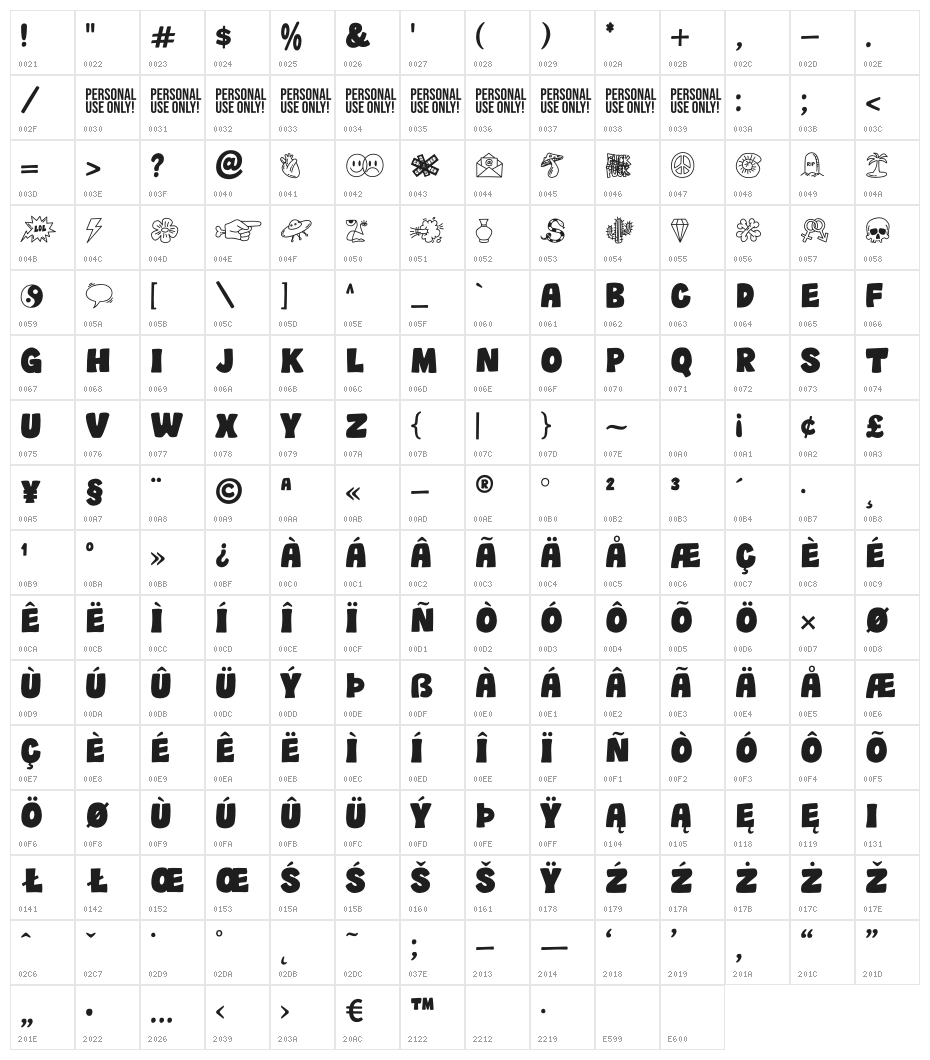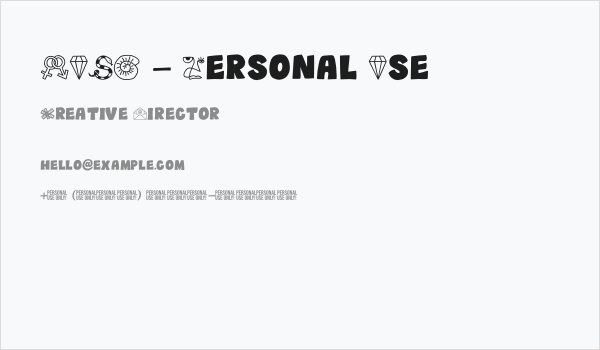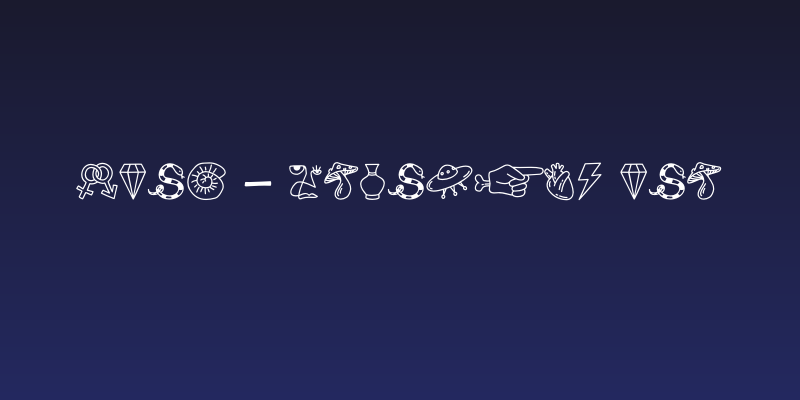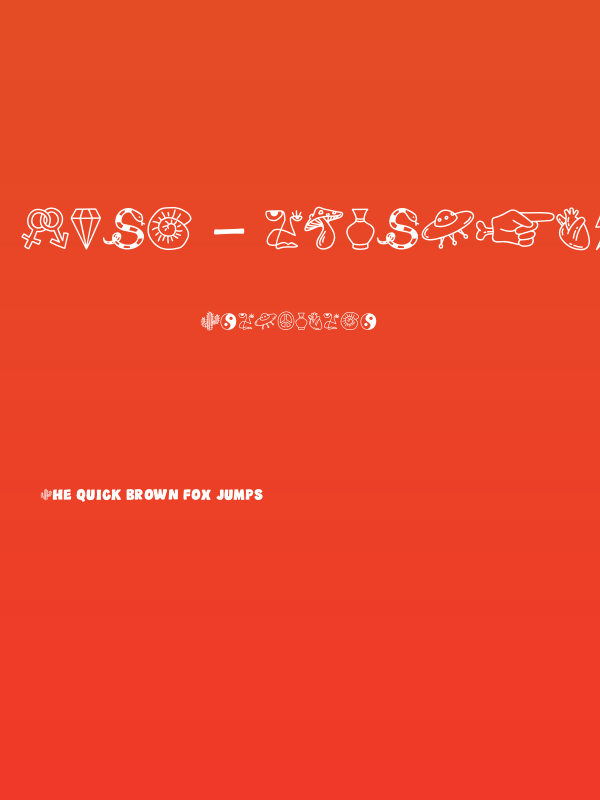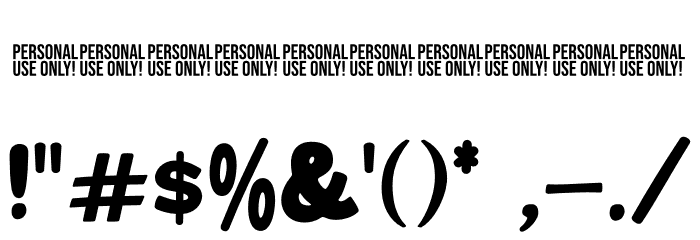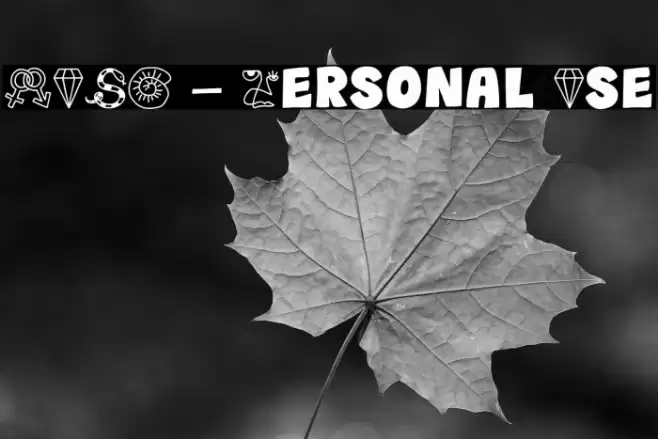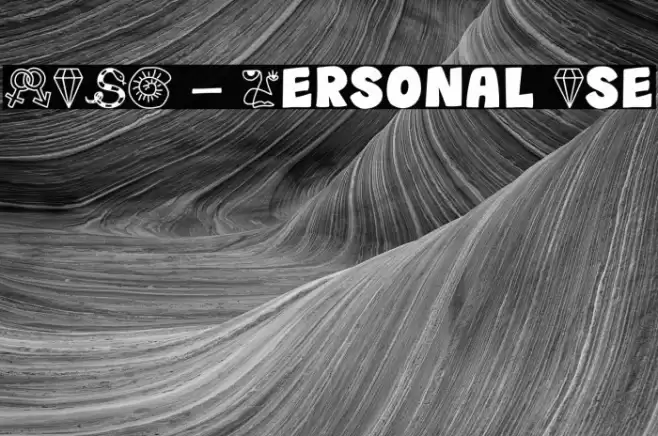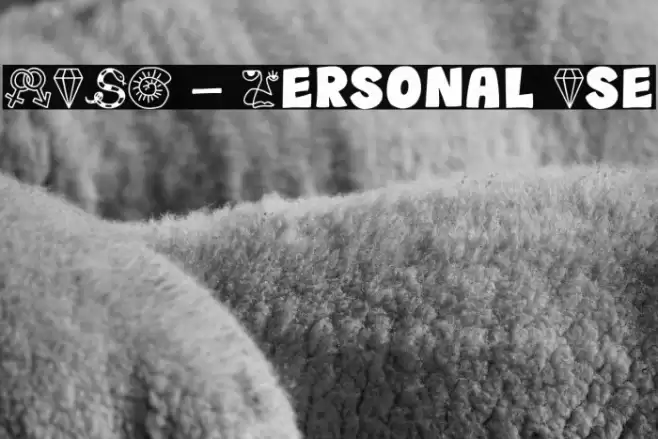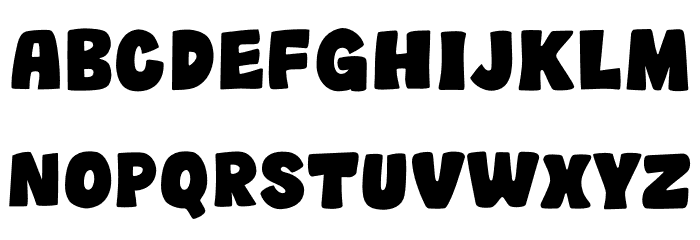
WUSH - Personal Use Font
WUSH - Personal Use Description
This font features bold, rounded characters with a playful and informal style. The uppercase letters are prominent and slightly irregular, giving a hand-drawn appearance. The font includes a variety of special characters and symbols, adding to its quirky and fun aesthetic. It is designed to capture attention with its thick strokes and unique character shapes, making it suitable for creative and casual projects. The overall look is lively and energetic, perfect for designs that aim to convey a sense of fun and spontaneity.
| Overall Style | Playful, Energetic |
| Proposed Projects | Ideal for posters, children's books, comic strips, and playful branding. |